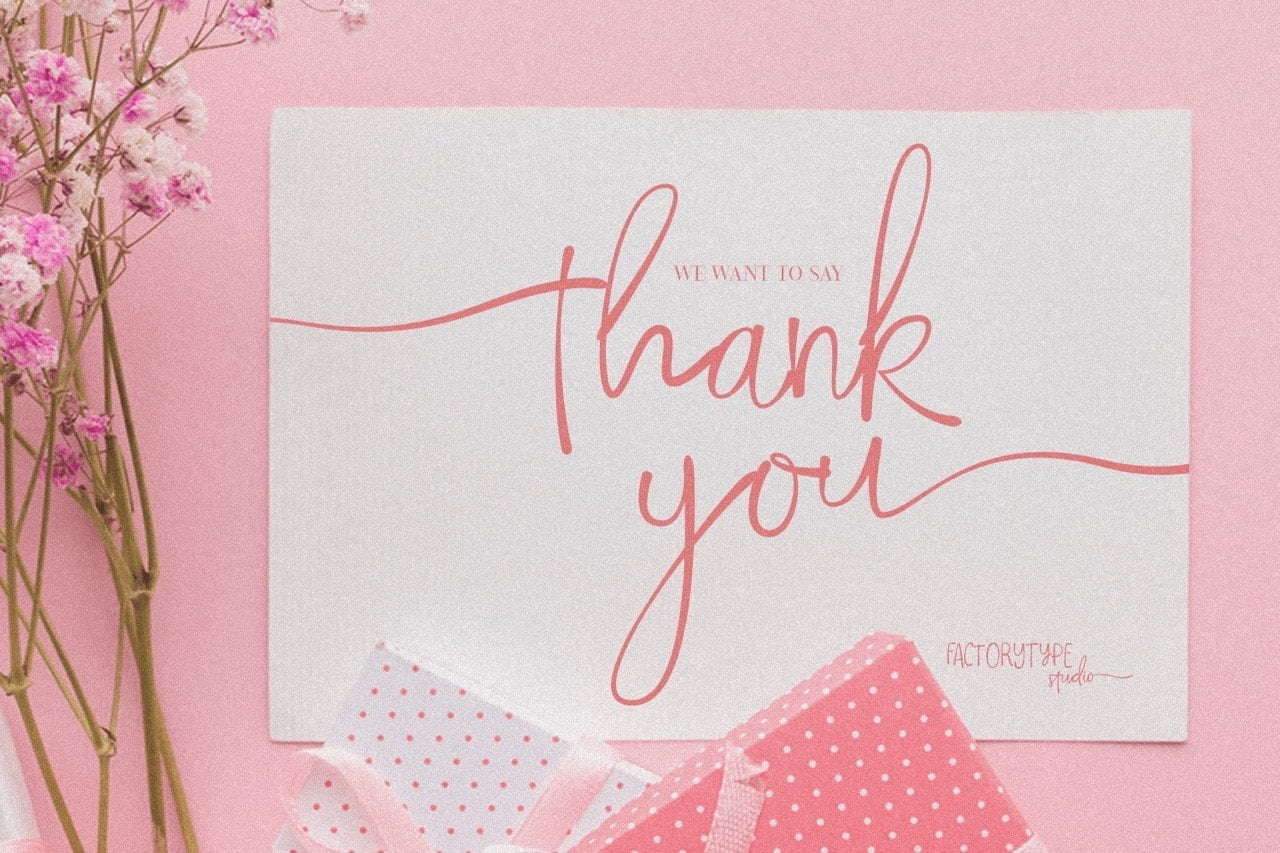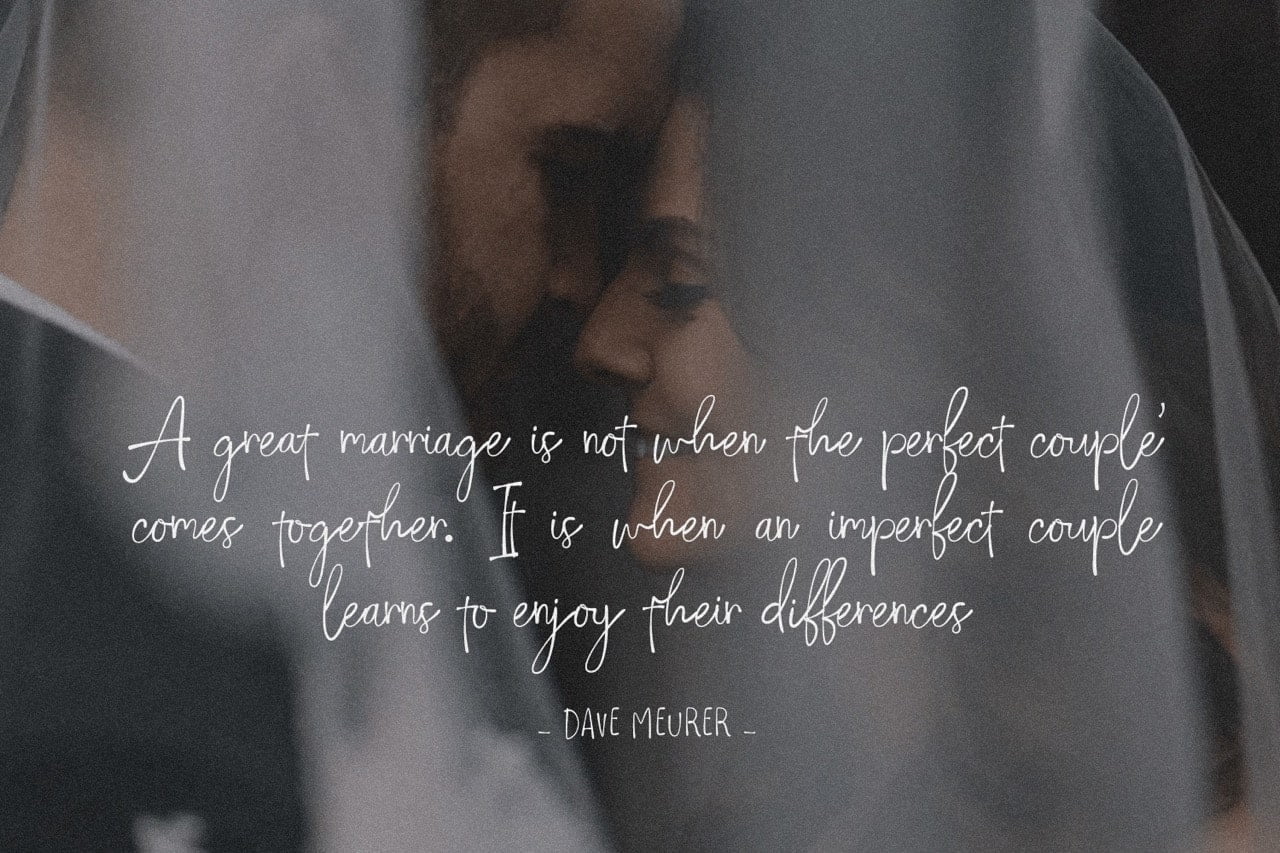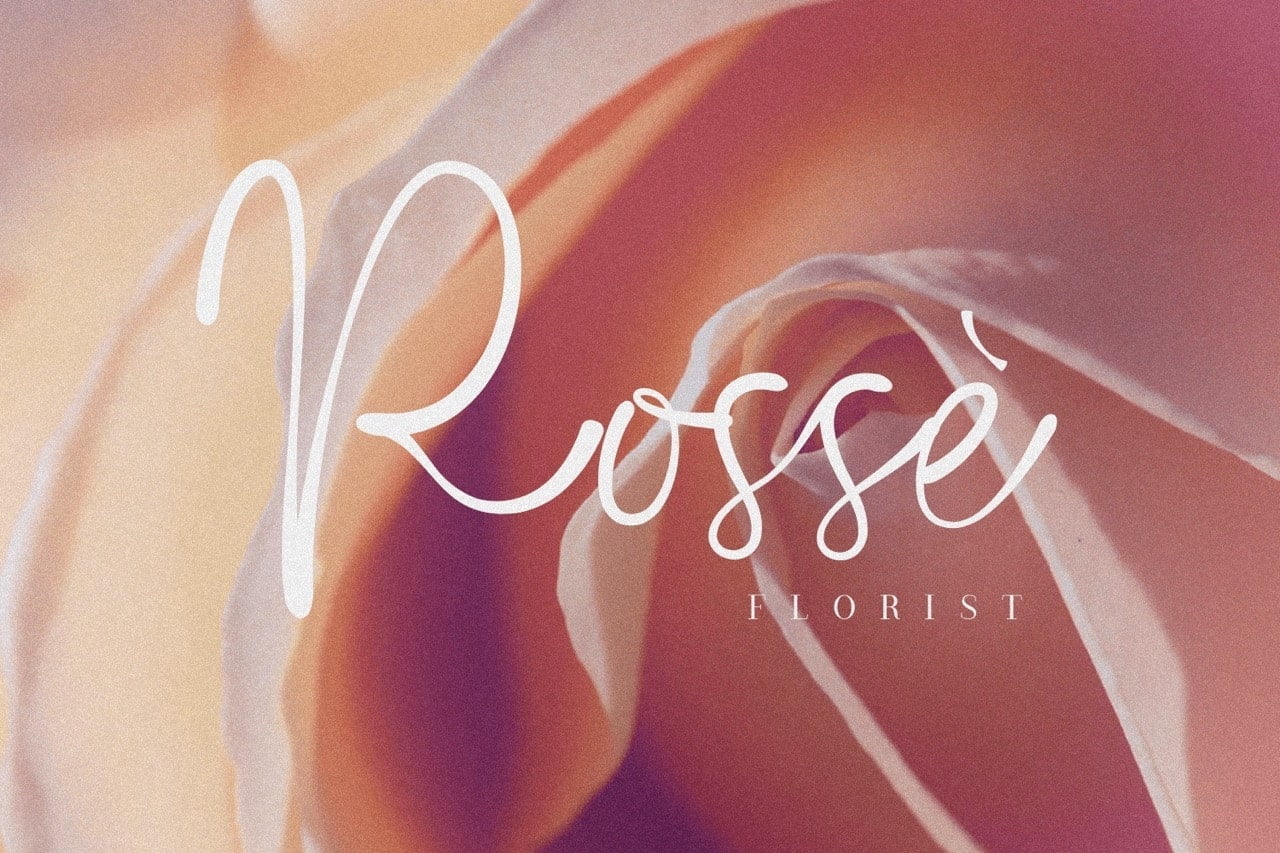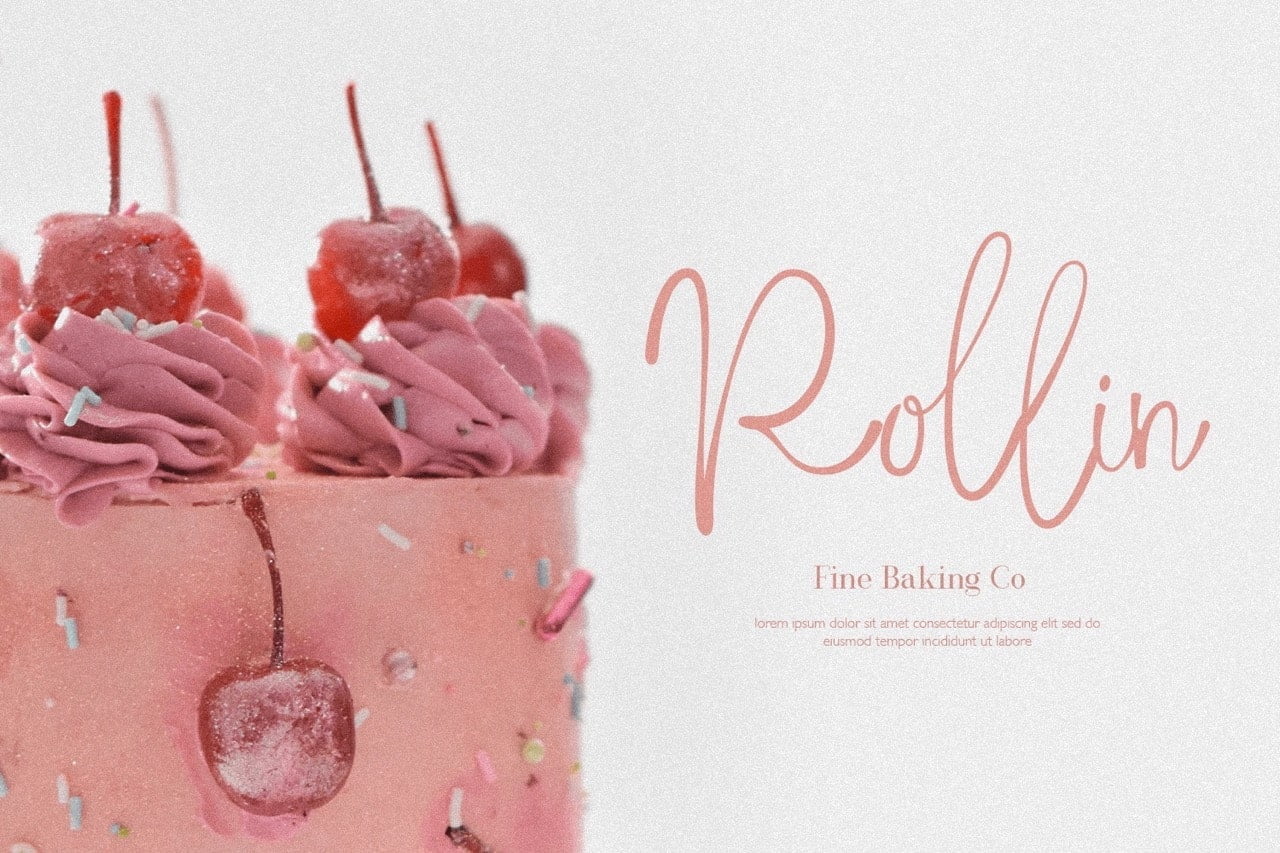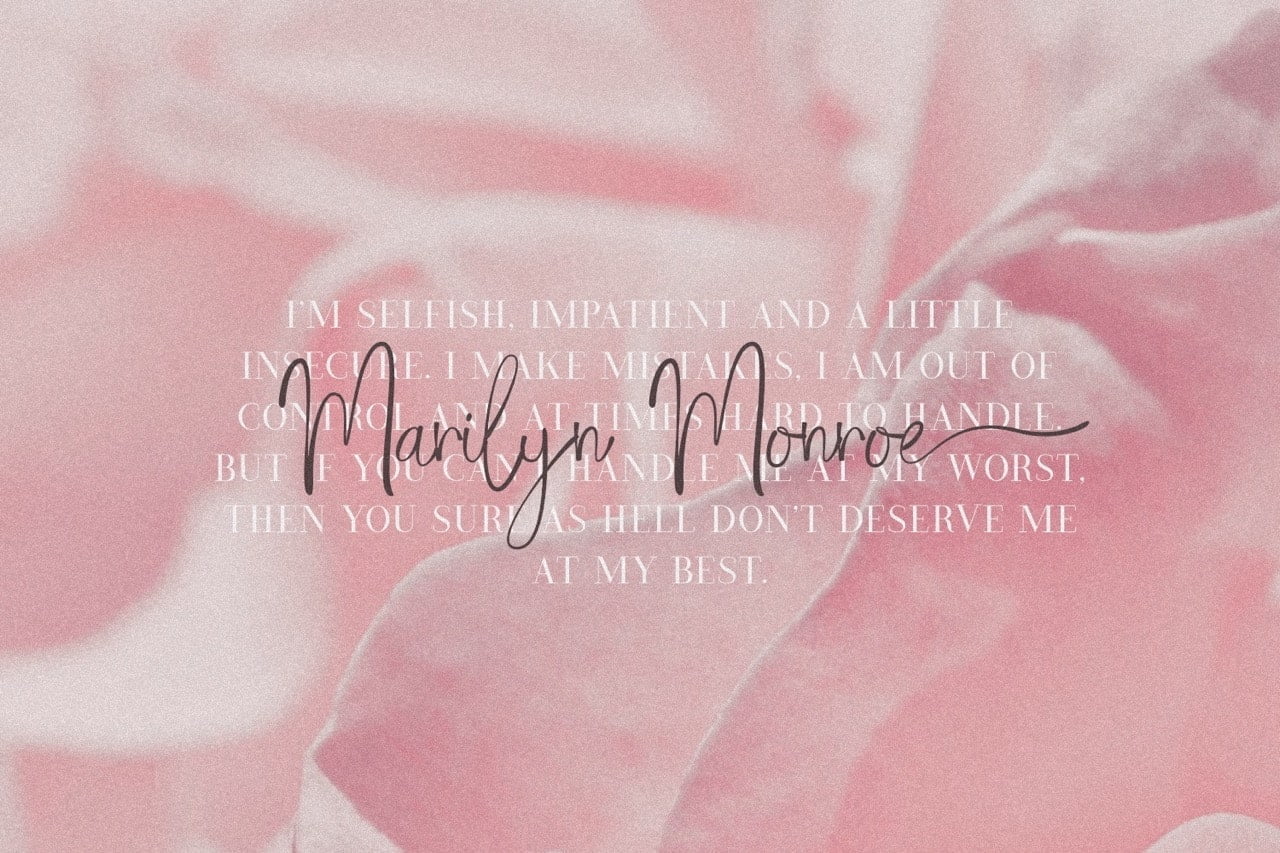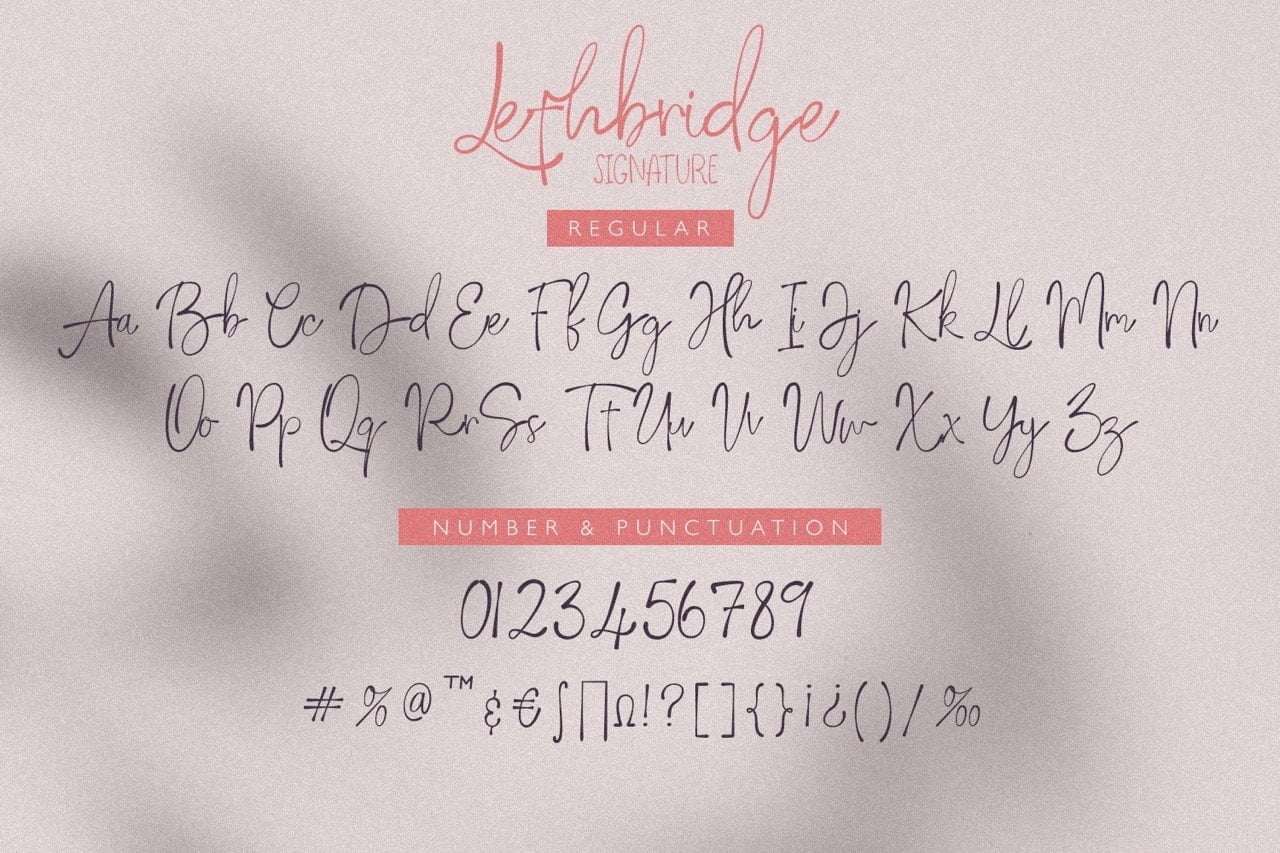
Lethbridge is a handwritten font made with love. Its bold strokes and wide range of lowercase letters make it perfect for branding, logo designs and social media posts. The letterforms are also available in all caps, as well as in upper case for spaces.
- Stylistic Ligatures and Alternate Glyphs
Lethbridge Handwriting